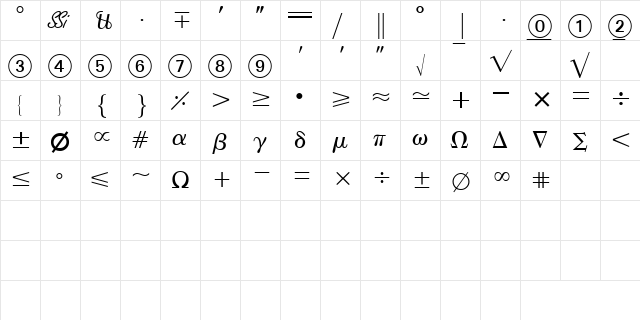
AbacusFourSSi Regular
Design Context for AbacusFourSSi Typeface
AbacusFourSSi offers clean, dependable letterforms without strong stylistic allegiance, making it a practical choice for designers who need flexibility.
Pro Tip: Use AbacusFourSSi in both headline and body roles to test its range before committing to a single application.